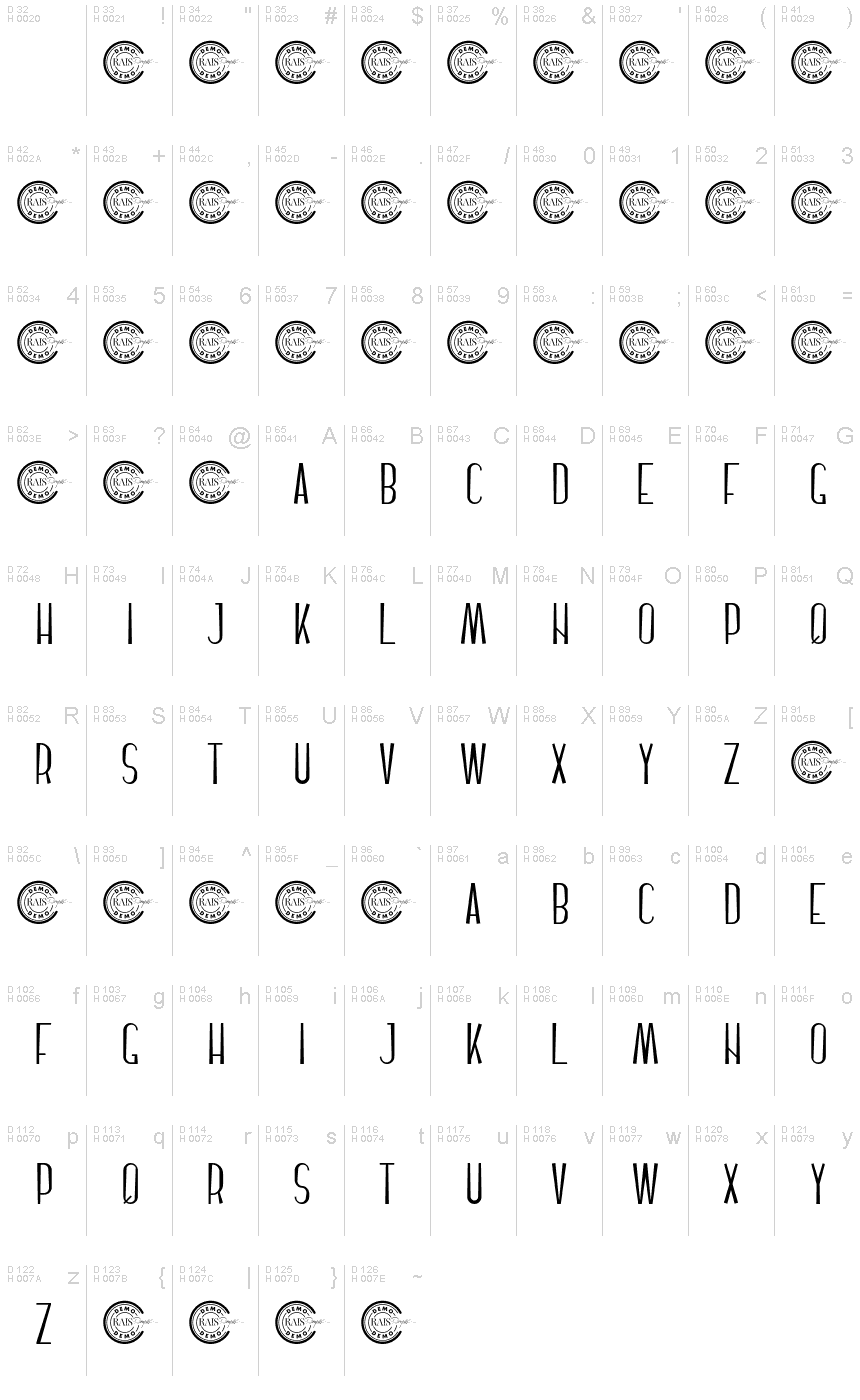
Haiterbach Demo
Haiterbach by RaisProject is a striking sans serif font with a semi-light weight and extra-condensed width, perfect for projects that require a modern and minimalistic look. The clean lines and sharp edges of Haiterbach make it ideal for logos, headlines, and branding materials that need to stand out. This font's unique style also makes it suitable for website design, packaging design, and advertising campaigns. With its sophisticated yet versatile appearance, Haiterbach is sure to elevate any project to the next level.